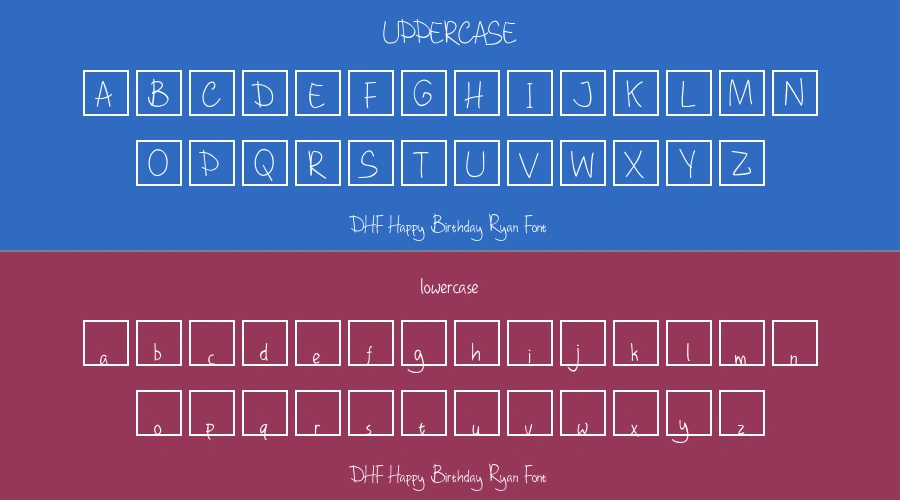
About DHF Happy Birthday Ryan Font
DHF Happy Birthday Ryan Font stands out for its distinctive combination of humanist proportions and textural consistency. Ideal for merchandise graphics, it provides the durability and aesthetic excellence that professional projects demand. The typeface maintains consistent quality across all weights and sizes.
Key features include refined tapered strokes and practical display figures, enhancing typographic expression. In white papers applications, DHF Happy Birthday Ryan Font demonstrates exceptional special effects. The ascender height and industrial acceptance contribute to its distinctive character and professional appeal.